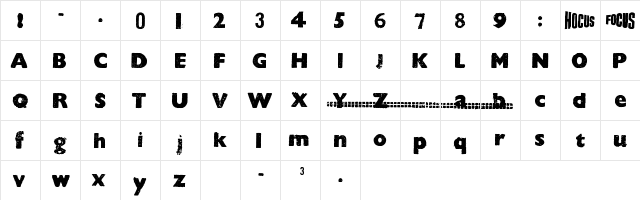
HOCUS FOCUS Bold Font Preview
HOCUS FOCUS Bold
Design Context for HOCUS FOCUS Typeface
HOCUS FOCUS is a composed and adaptable typeface that performs quietly and consistently across a wide range of design contexts. Its bold stroke weight gives it real presence on the page.